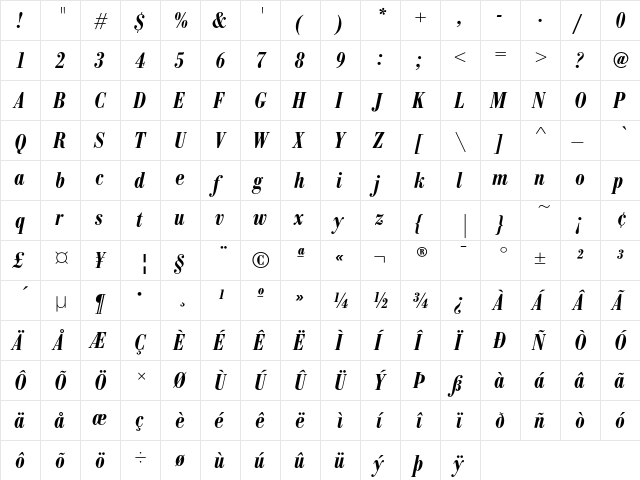
BodoniEF DemiBoldCondIta Font Preview
BodoniEF DemiBoldCondIta
Design Context for BodoniEF Typeface
BodoniEF offers clean, dependable letterforms without strong stylistic allegiance, making it a practical choice for designers who need flexibility. Its bold stroke weight gives it real presence on the page. The condensed width makes it efficient for tight spaces without sacrificing legibility.